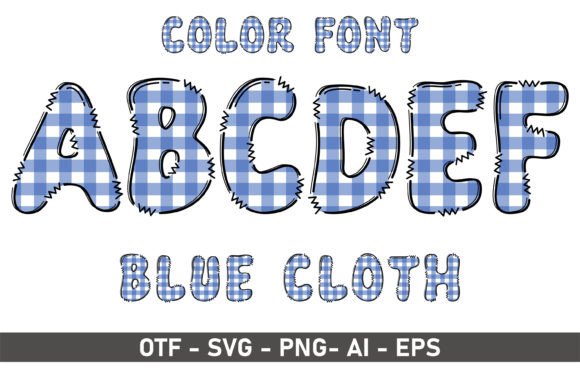
Welcome to the world of Blue Cloth Font, a colorful and captivating collection that's sure to ignite your creativity. Dive into a symphony of hues and let these fonts transform your designs into vibrant masterpieces. Unleash your imagination and embark on a journey where colors dance and letters come alive.
Blue Cloth Font is a symphony of creativity and expression, meticulously crafted by the talented Veil. Each character is a stroke of genius, a burst of color that will leave you spellbound. Unleash the artist within and let your designs flourish with the vibrancy of Blue Cloth Font.
These fonts are not merely visual adornments; they are storytellers, each stroke narrating a tale. Bring your designs to life with the playful and artistic charm of Blue Cloth Font. They are perfect for children's books, posters, invitations, greeting cards, and any project that demands a touch of whimsy and delight.
With Blue Cloth Font, you have a palette of emotions at your fingertips. Create designs that resonate with your audience, designs that evoke joy, laughter, and wonder. Let your creativity soar and immerse yourself in the colorful world of Blue Cloth Font.
The black version of this font is compatible with Cricut Design Space and other cutting machines, making it a versatile choice for your crafting endeavors. Unleash your inner artist and transform your designs into tangible works of art.